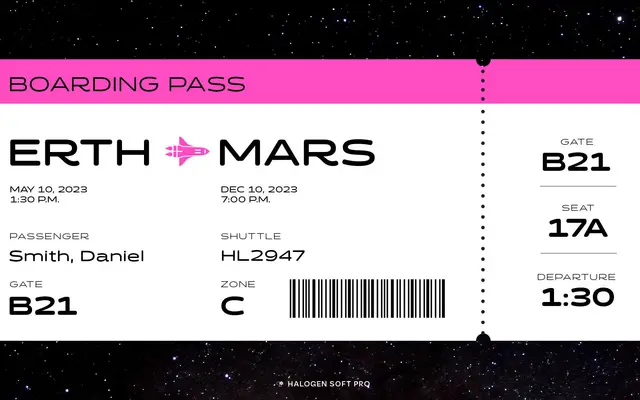
Halogen Soft Pro
Positype · Neil Summerour · 2023
A softened, remastered edition of Neil Summerour's 2011 Halogen, expanded in 2023 with Cyrillic and Greek support across 42 styles.
Originating from Summerour's 2011 Halogen release, this Pro variant introduces a softer aesthetic while retaining the generous x-height and extended character set of the original family. Seven weights from Hairline to Black each carry an oblique companion, and OpenType features include small caps, oldstyle and tabular numerals, swash alternates and fractions. Script coverage spans Latin, Cyrillic and Greek, with language support claimed across 343 languages.
An extended geometric sans with a generous x-height, offered in oblique rather than true italic cuts, with a softened variant aesthetic that distinguishes it from harder-edged geometric predecessors in the Halogen family.